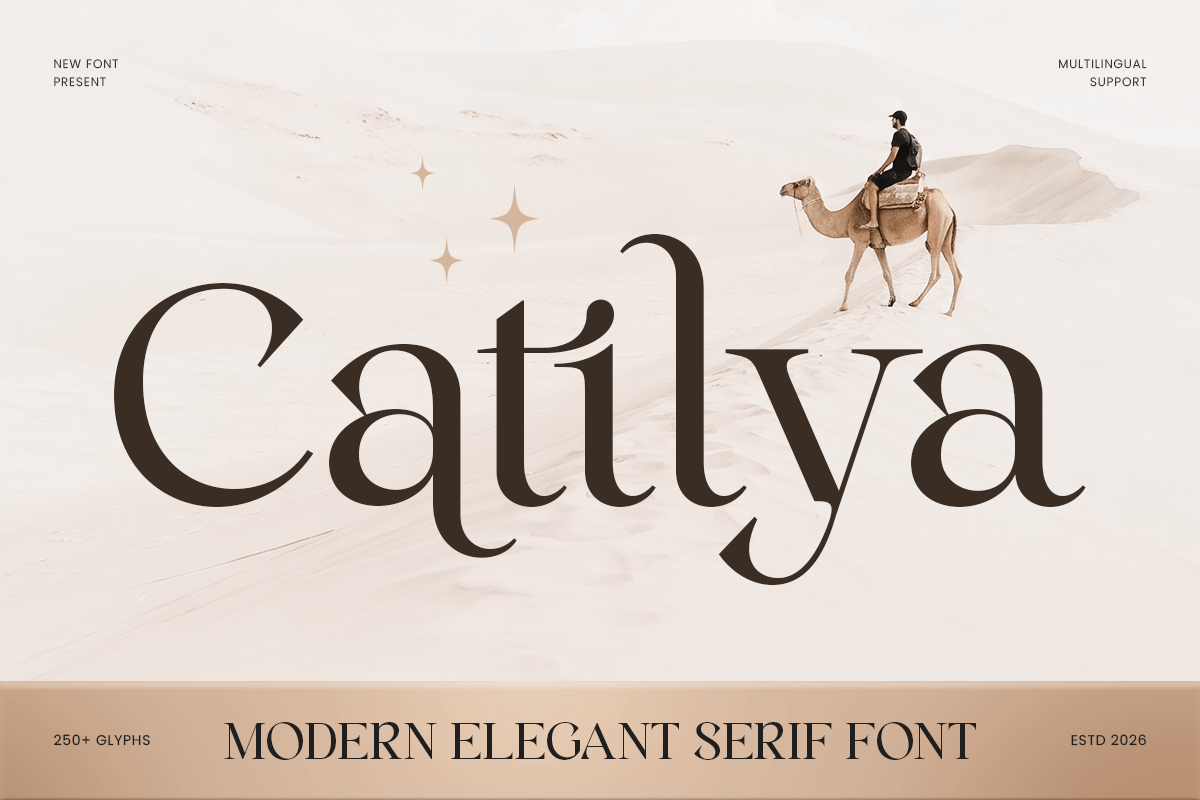
Catilya
-Modern Elegant Serif Font
Catilya - Modern Elegant Serif Font
Catilya is a modern elegant serif font crafted to bring sophistication, clarity, and timeless beauty to your creative projects. With refined serif details, graceful proportions, and a polished modern structure, this typeface is ideal for luxury branding, editorial layouts, fashion campaigns, packaging, and elegant logo design.
Designed for creators who want typography with both charm and professionalism, Catilya balances classic serif elegance with contemporary visual appeal. Its smooth curves and stylish contrast make it perfect for beauty brands, boutique identities, wedding stationery, lifestyle products, magazine titles, and premium marketing visuals.
Whether used as a headline, logo mark, invitation title, or packaging centerpiece, Catilya delivers a refined and memorable presence across both print and digital media.
Catilya – Modern Elegant Serif Font Features
• Modern elegant serif design with refined visual character
• Perfect for branding, logos, editorials, and luxury packaging
• Graceful curves and stylish contrast for premium typography
• Ideal for fashion, beauty, lifestyle, wedding, and boutique industries
• OpenType features for enhanced typographic styling
Create timeless elegance with Catilya – the perfect modern serif font for luxury branding, editorial design, and sophisticated visual identity. ✨